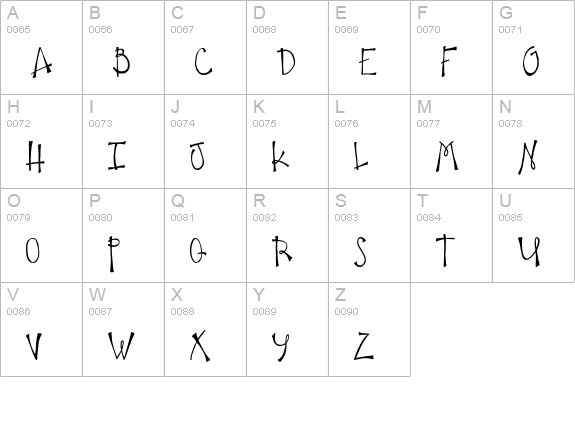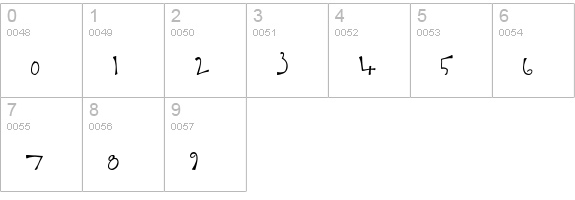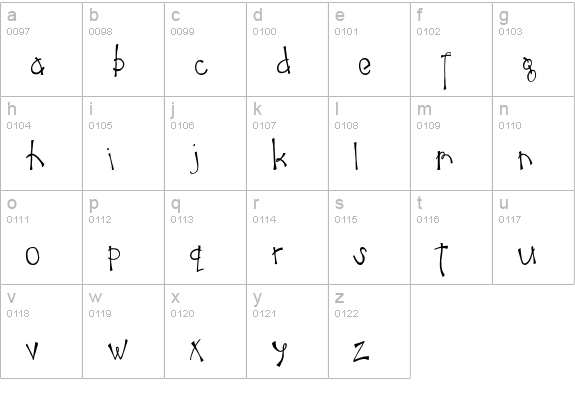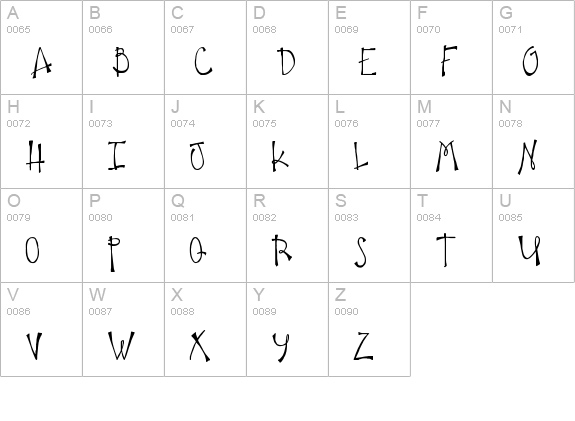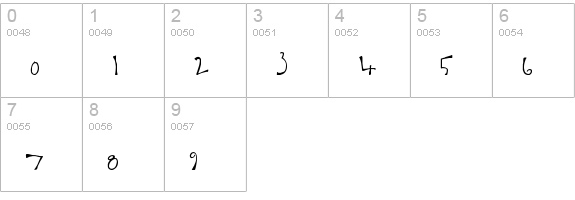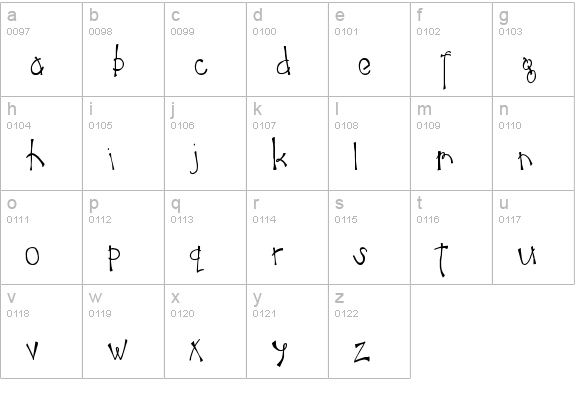
CK Huckleberry Font Details
Introducing CK Huckleberry font - a whimsical and charming typeface that exudes a playful and friendly vibe. With its unique hand-drawn style and energetic curves, this font is perfect for adding a touch of personality to your design projects. CK Huckleberry is free to use and is easily accessible for download at FontsMarket.com. Whether you're creating invitations, posters, or branding materials, this versatile font will surely bring a fresh and creative flair to your work. Embrace the joy and creativity that CK Huckleberry font has to offer and elevate your designs with its delightful charm.